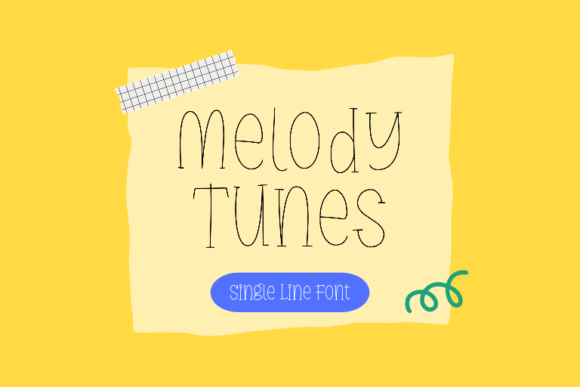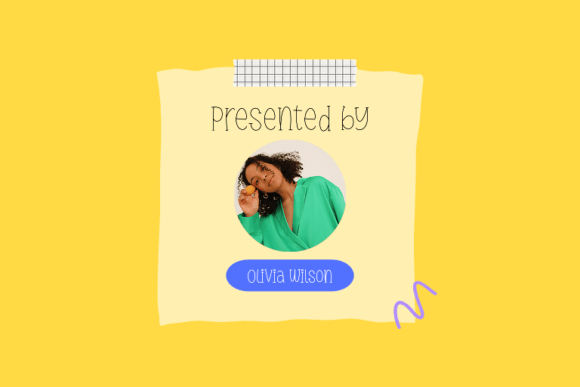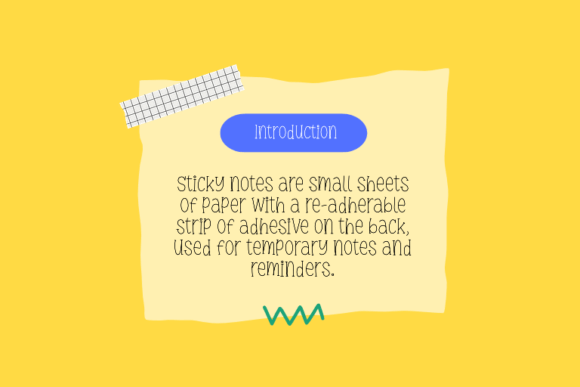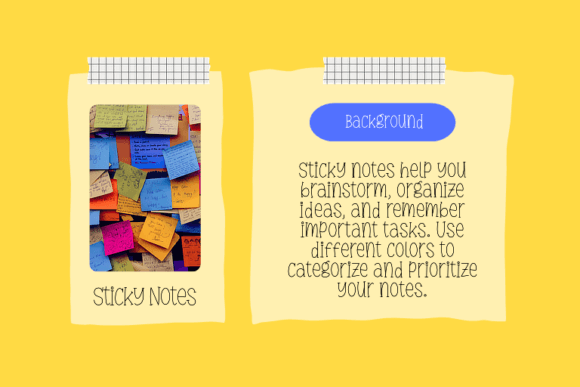
Melody Tunes Font
About the Melody Tunes Font
Experience the unique personality of Melody Tunes Font, a font designed for impact. Melody Tunes is a quirky and whimsical handwritten font. This font is full of personality and charm. The letters are slightly irregular, with playful curves and unexpected details that make them stand out. Its friendly and approachable design makes it perfect for children’s books, packaging, or any project that requires a touch of whimsy.
Melody Tunes excels in projects requiring a lighthearted and approachable feel. Ideal applications include children’s book titles, playful branding for confectionery or toys, and eye-catching packaging designs. It also works well for short, impactful headlines or social media graphics. However, its whimsical nature makes it unsuitable for body text or lengthy content, where readability suffers due to the irregular letterforms.
Pairing Melody Tunes with a clean sans-serif like Open Sans for body text creates a strong contrast, balancing its playful energy with a sense of order. Alternatively, a classic serif font such as Garamond can add a touch of sophistication, grounding the whimsicality and creating a more refined look. Avoid pairing it with other highly stylized fonts, as this can result in visual clutter.
The font’s overall personality is undeniably friendly and charming, making it perfect for brands targeting a young or family-oriented audience. Its informal character suggests uses that value approachability and a lighthearted aesthetic.
Melody Tunes Font Usage Examples
Melody Tunes Font Example